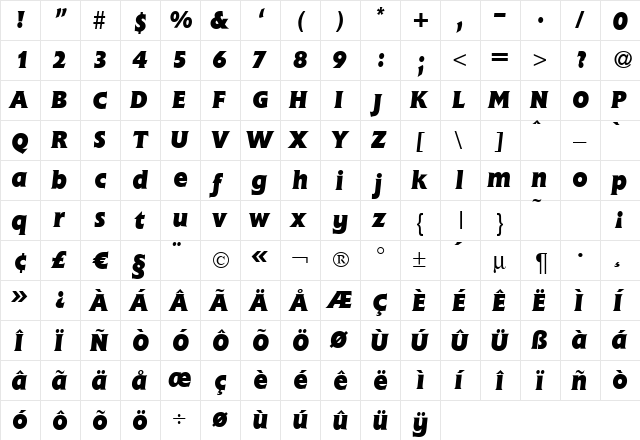
Fleming-Heavy Italic
Design Context for Fleming-Heavy Typeface
Fleming-Heavy is a composed and adaptable typeface that performs quietly and consistently across a wide range of design contexts. The dynamic lean of this cut emphasises speed and emphasis in any layout.